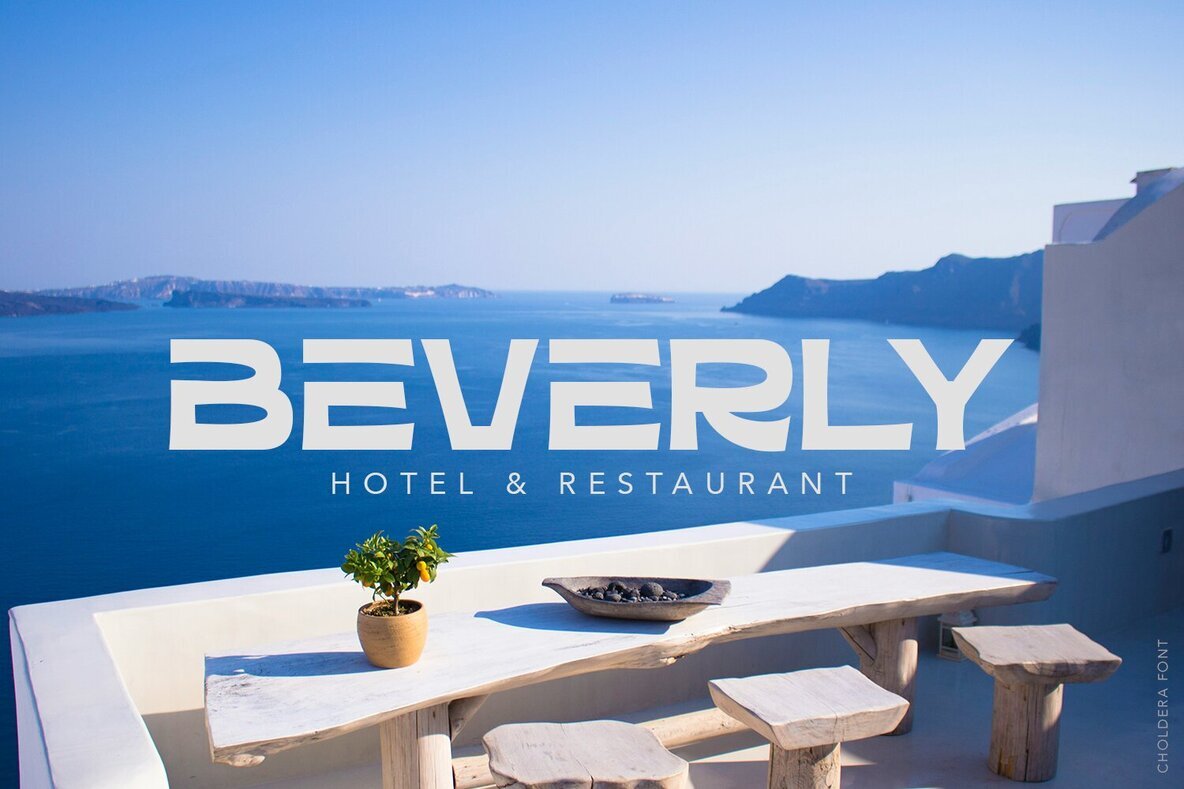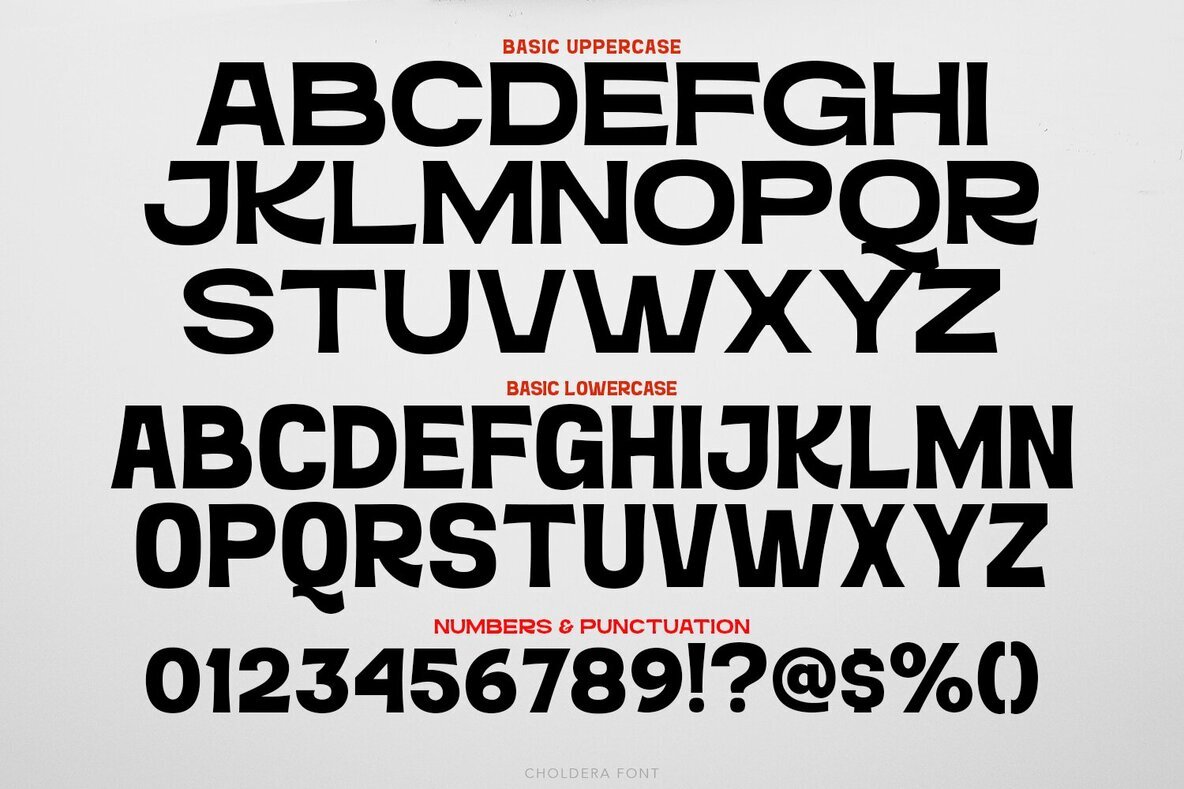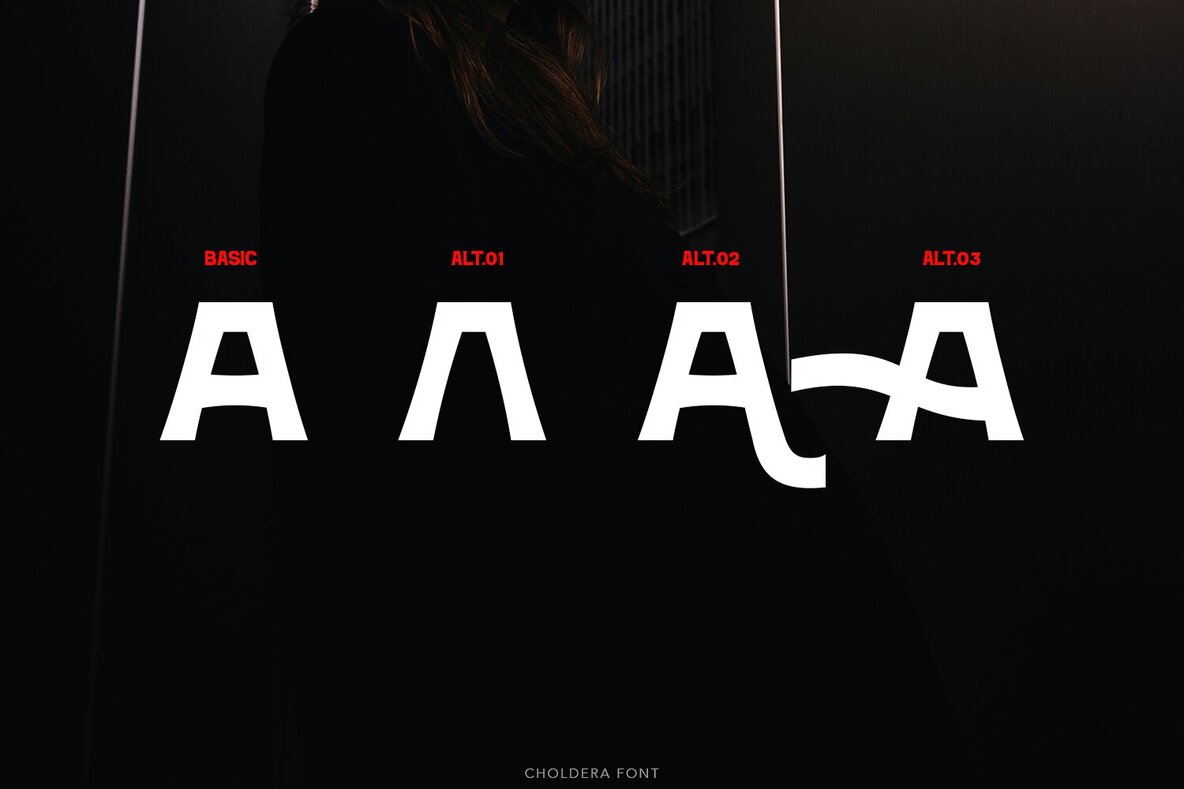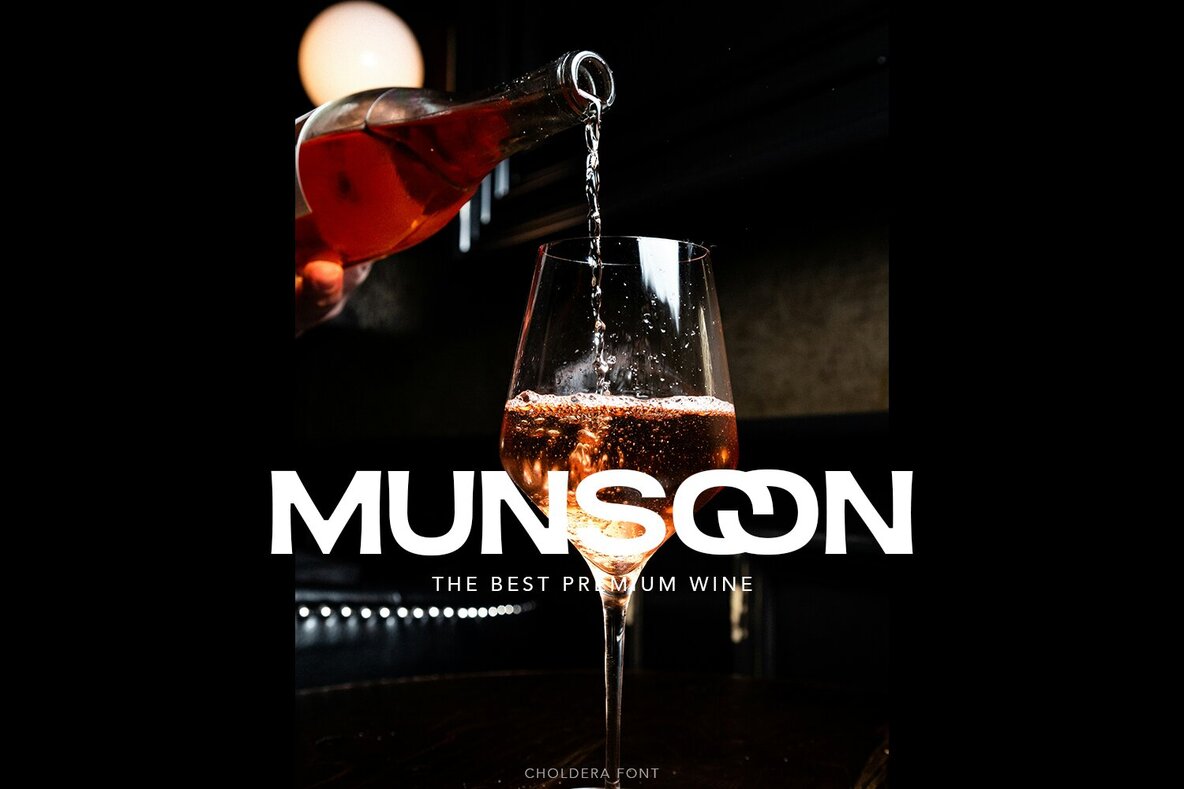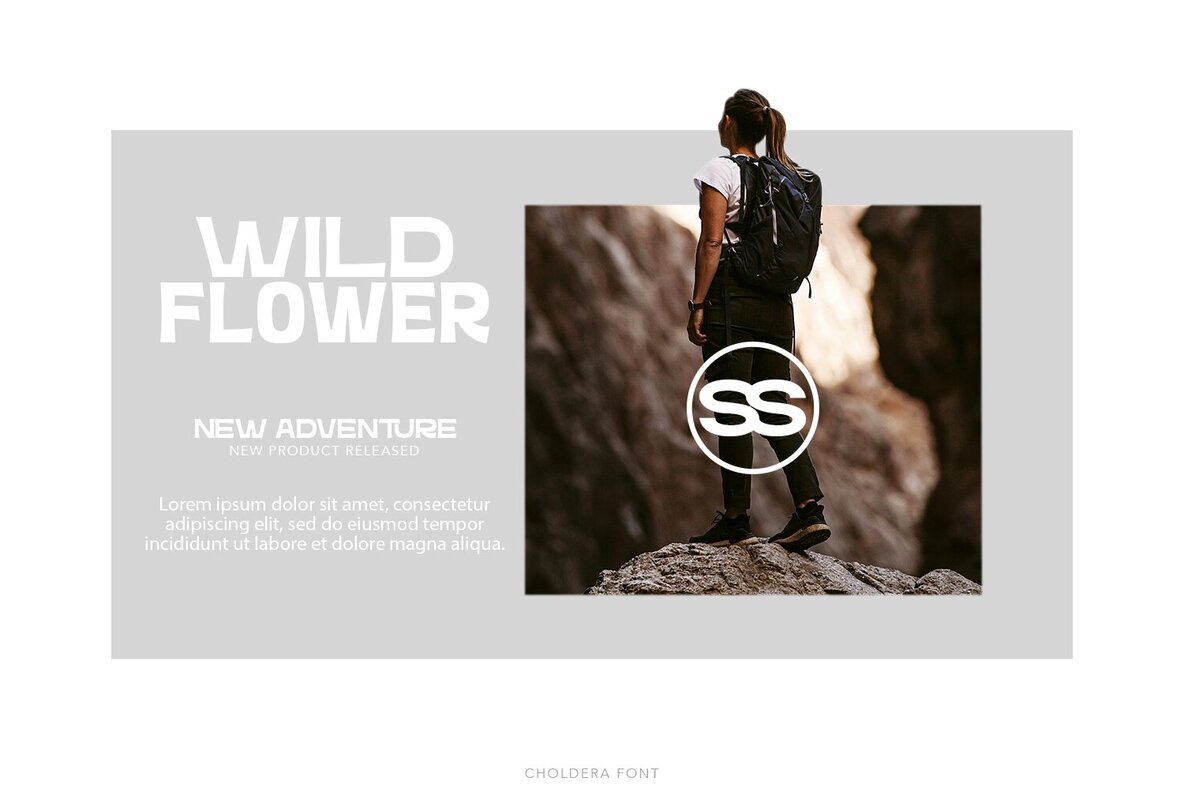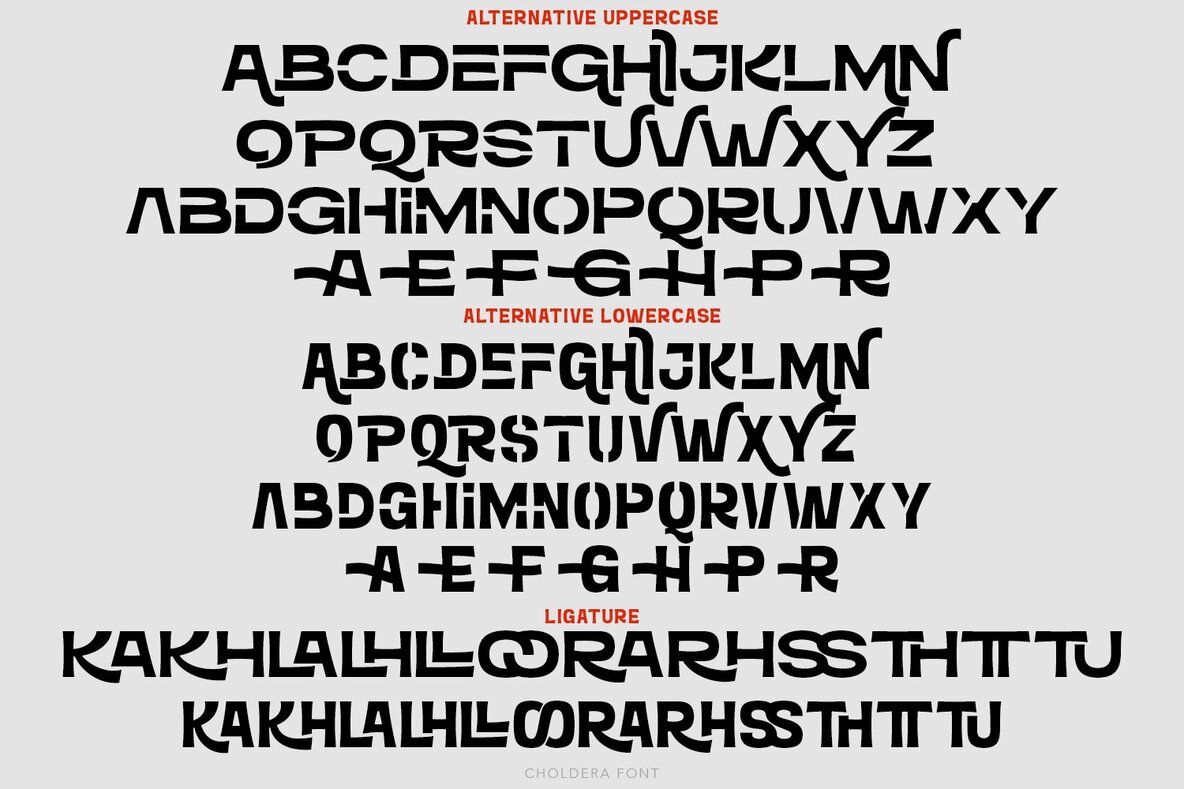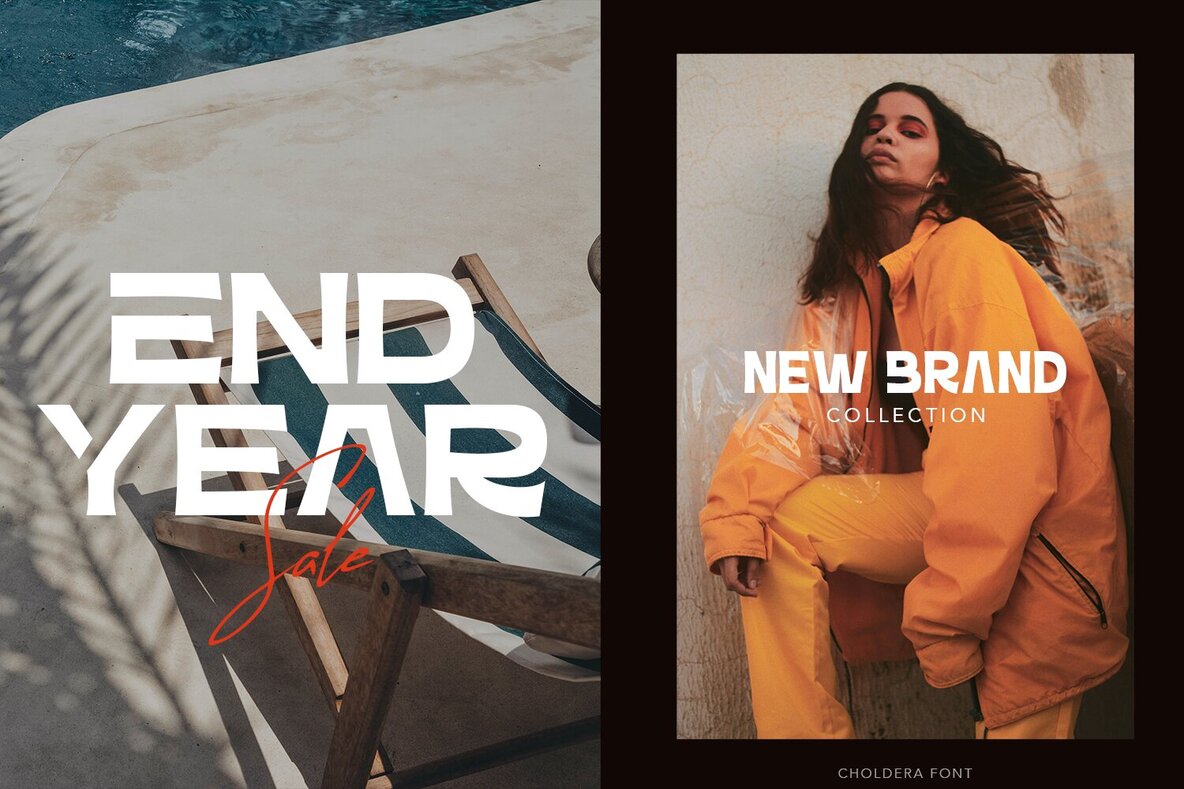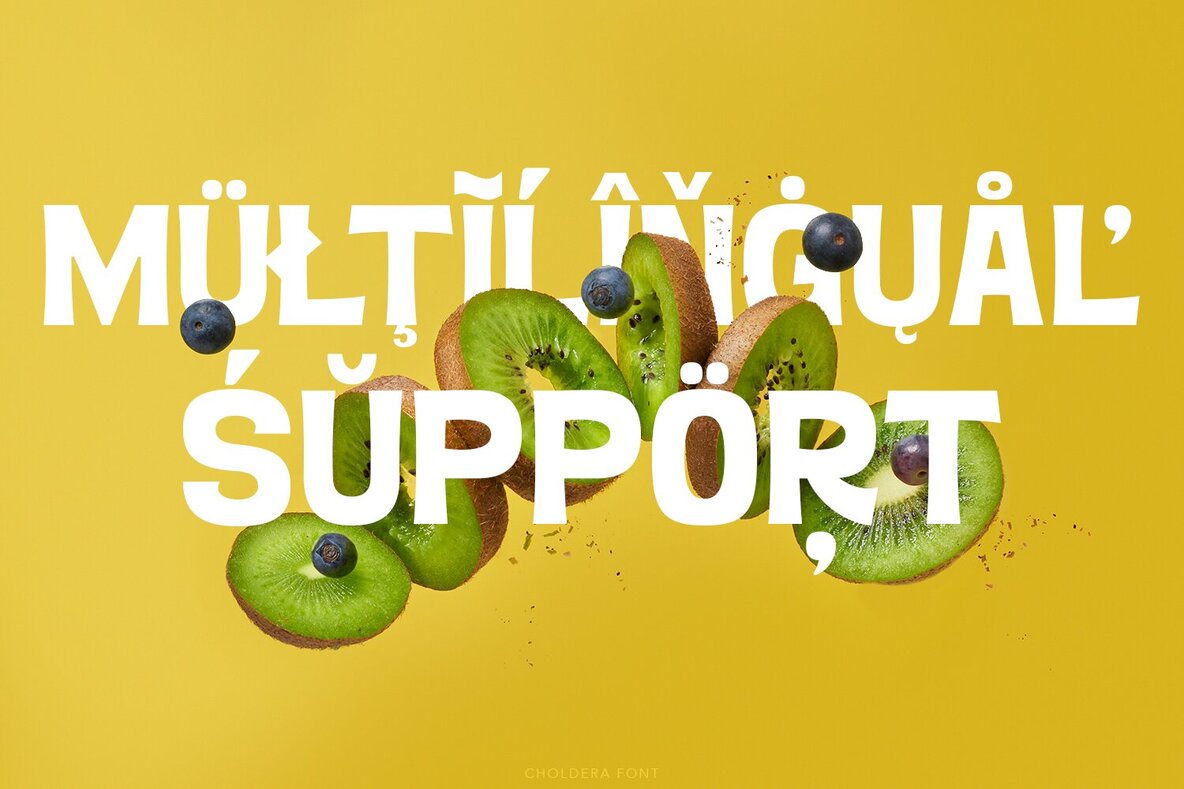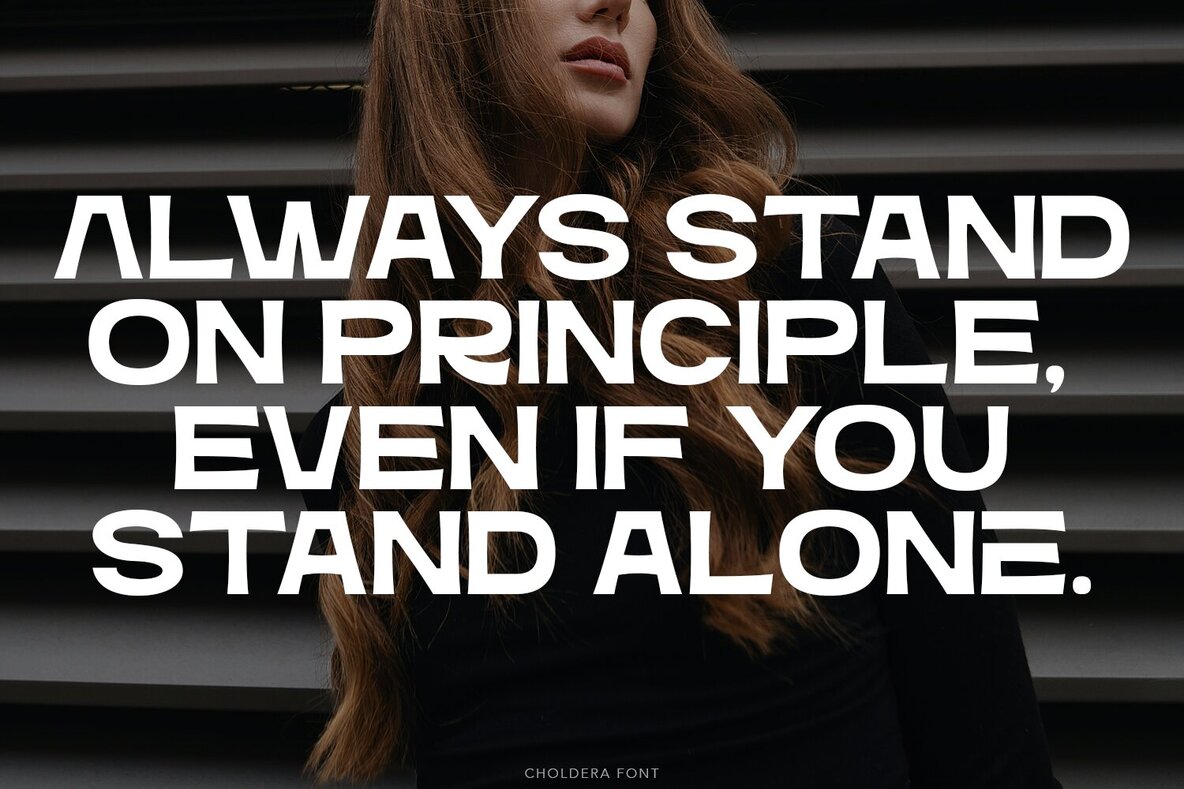
Choldera Font
Choldera Regular
Choldera Italic
Choldera is an uppercase font, comes with a single weight and has different widths between upper and lower case letters, so you can mix it up in every design of your project. Legible and expressive shapes. high-end fashion and cultural environments you can explore and combine. use this font for any branding, product packaging, headline, invitation, quotes, t-shirt, label, poster, logo etc.